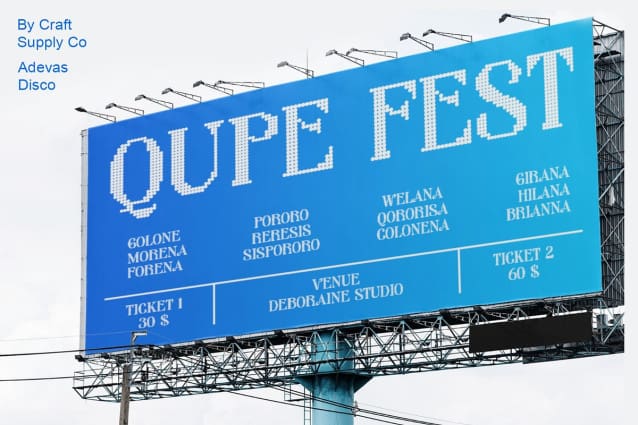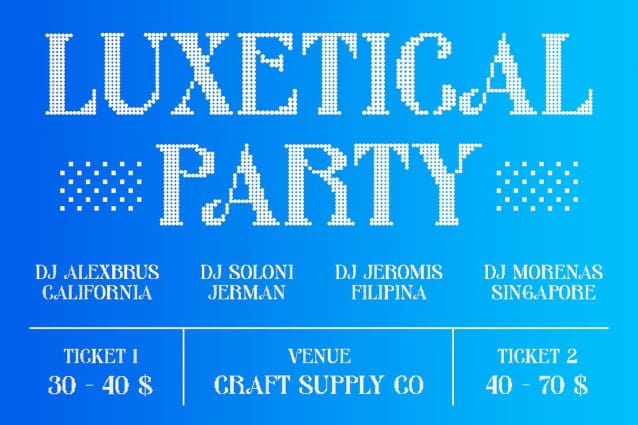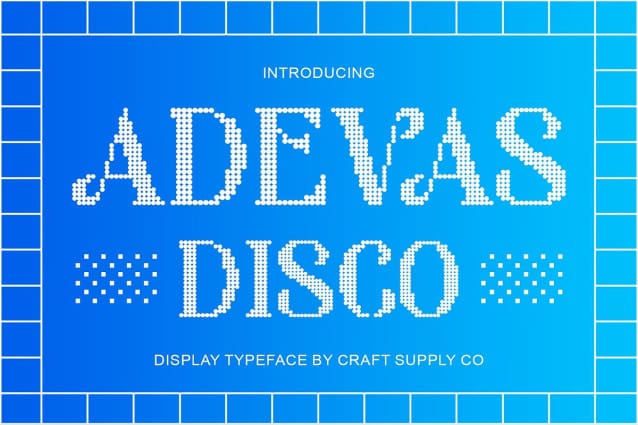
Adevas Disco Font
Adevas Disco Font: Illuminating Display Typography. Inspired by Disco Lights Adevas Disco draws inspiration from the vibrant hues and dynamic movements of disco lamps. Its serif glyphs mimic the shimmering lights, exuding energy and excitement.
Bold Serif Elegance With its bold serif design, This font radiates an aura of elegance and sophistication. Each character is meticulously crafted to command attention and convey a sense of grandeur.
Captivating Display Presence Tailored for display purposes, This font captivates viewers with its striking appearance. Whether used in posters, advertisements, or event signage, it promises to illuminate any design project.
Versatility in Application Beyond its disco-inspired aesthetic, This font offers versatility in application. It seamlessly complements various design contexts, from retro-themed branding to modern editorial layouts.
Where Typography Meets Disco Vibes This font merges the timeless charm of serif typography with the electrifying energy of disco lights. Its bold presence and captivating allure make it an ideal choice for designers seeking to infuse their projects with dynamic flair. Step into the world of This font and let your designs shine on the dance floor of creativity.